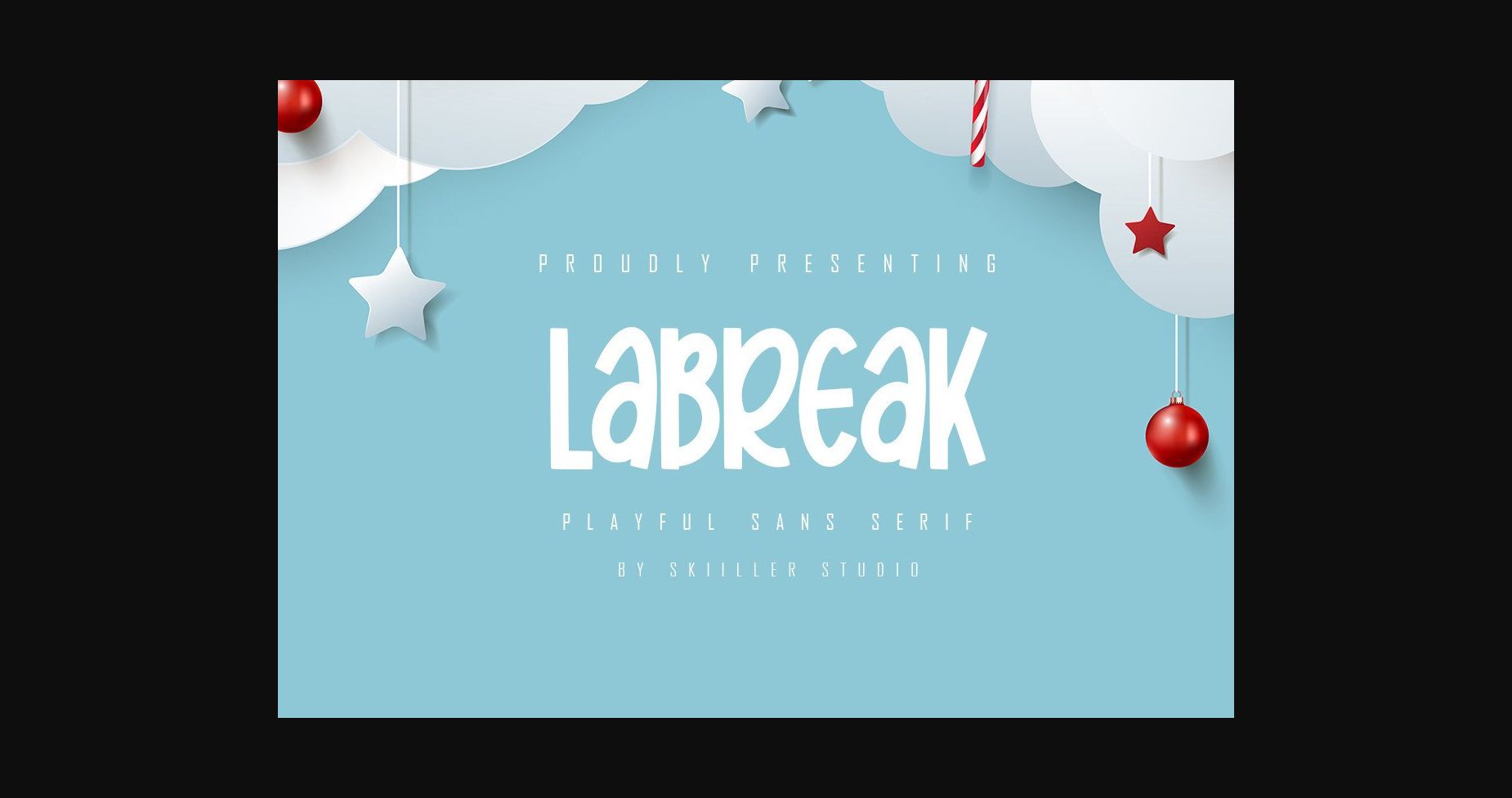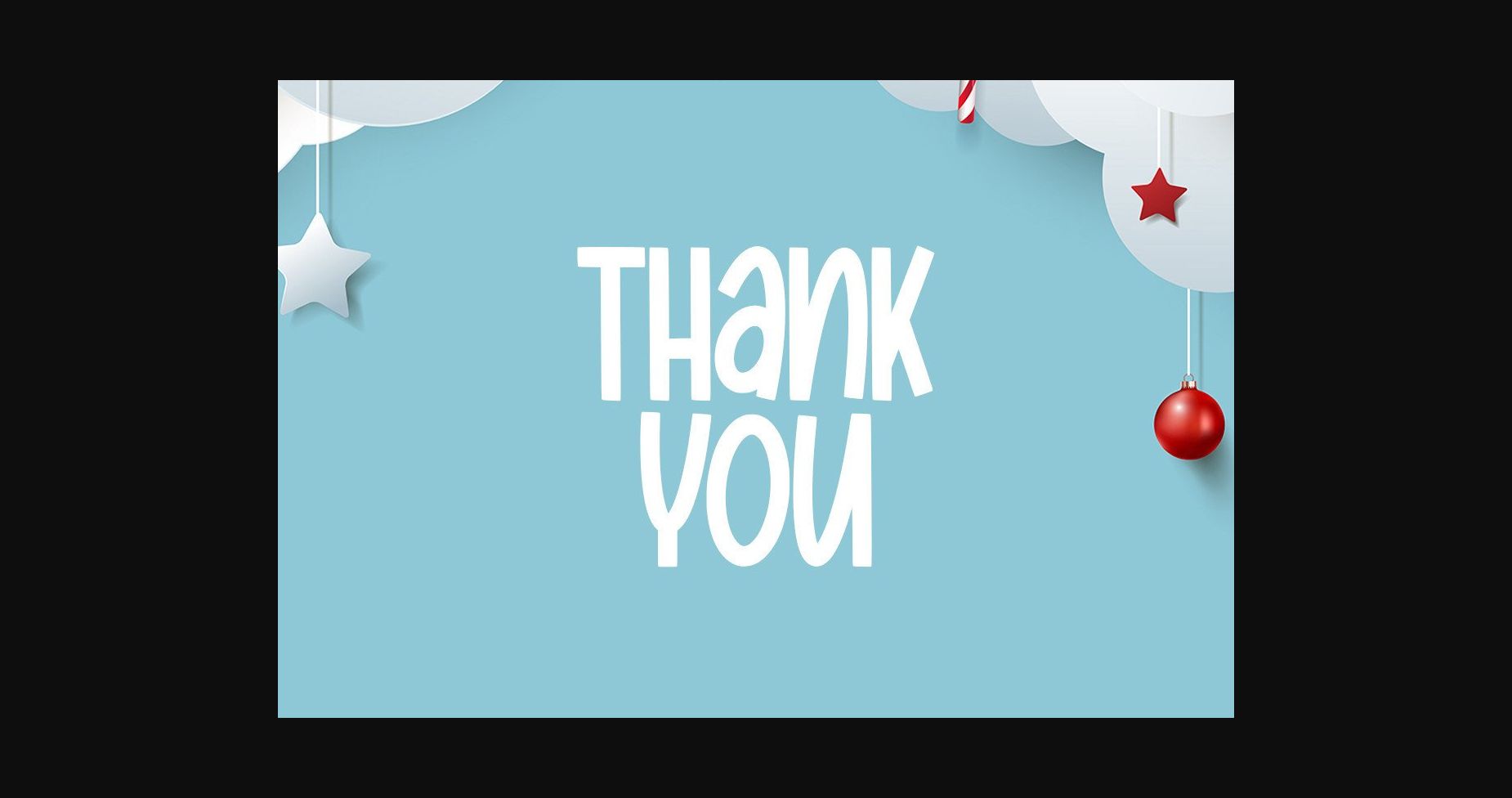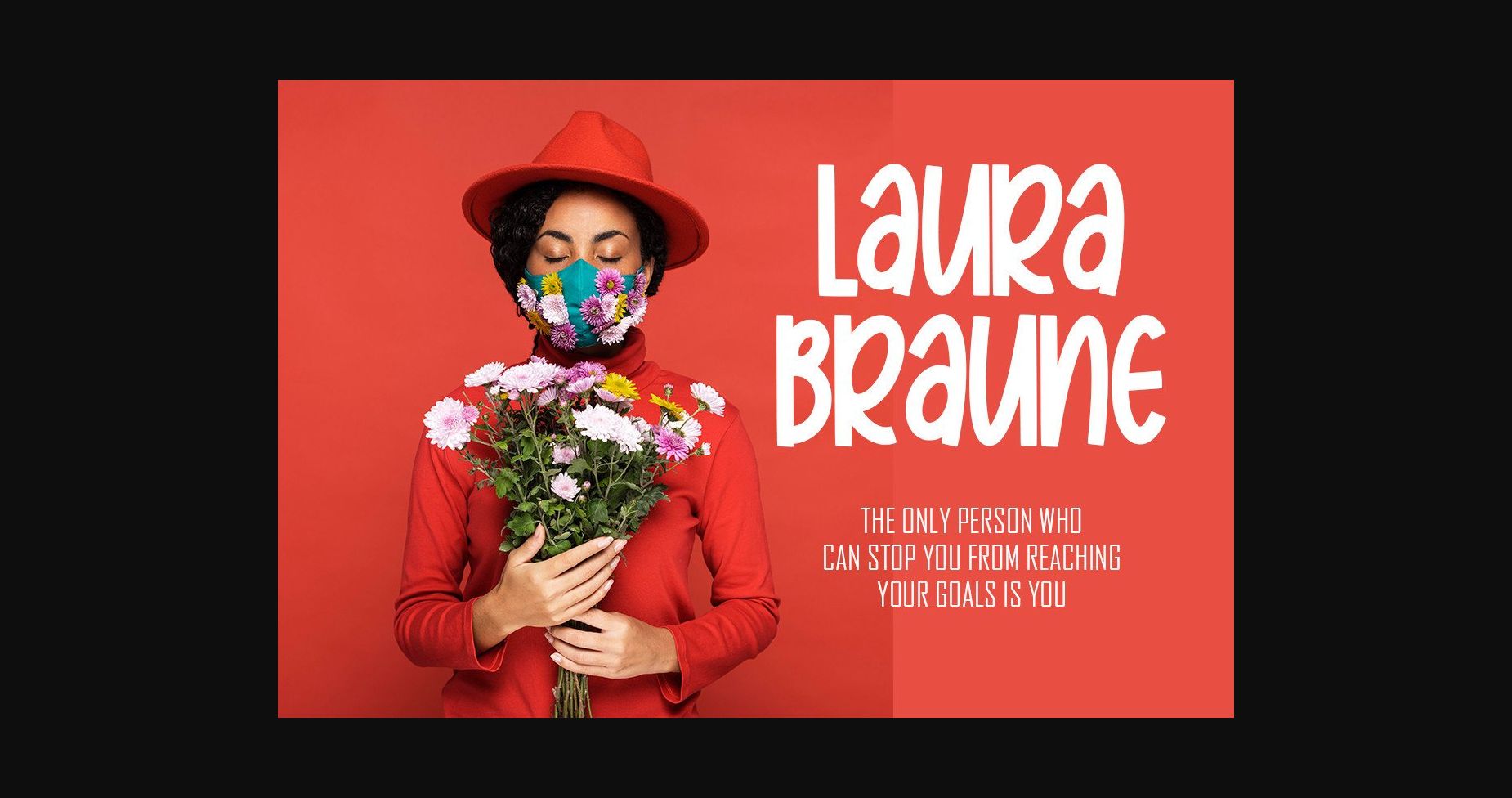
About Labreak Font
Labreak is a playful sans serif font. It has a friendly and casual look. It’s a great font for fashion, signatures, logos, magazines, and social media.